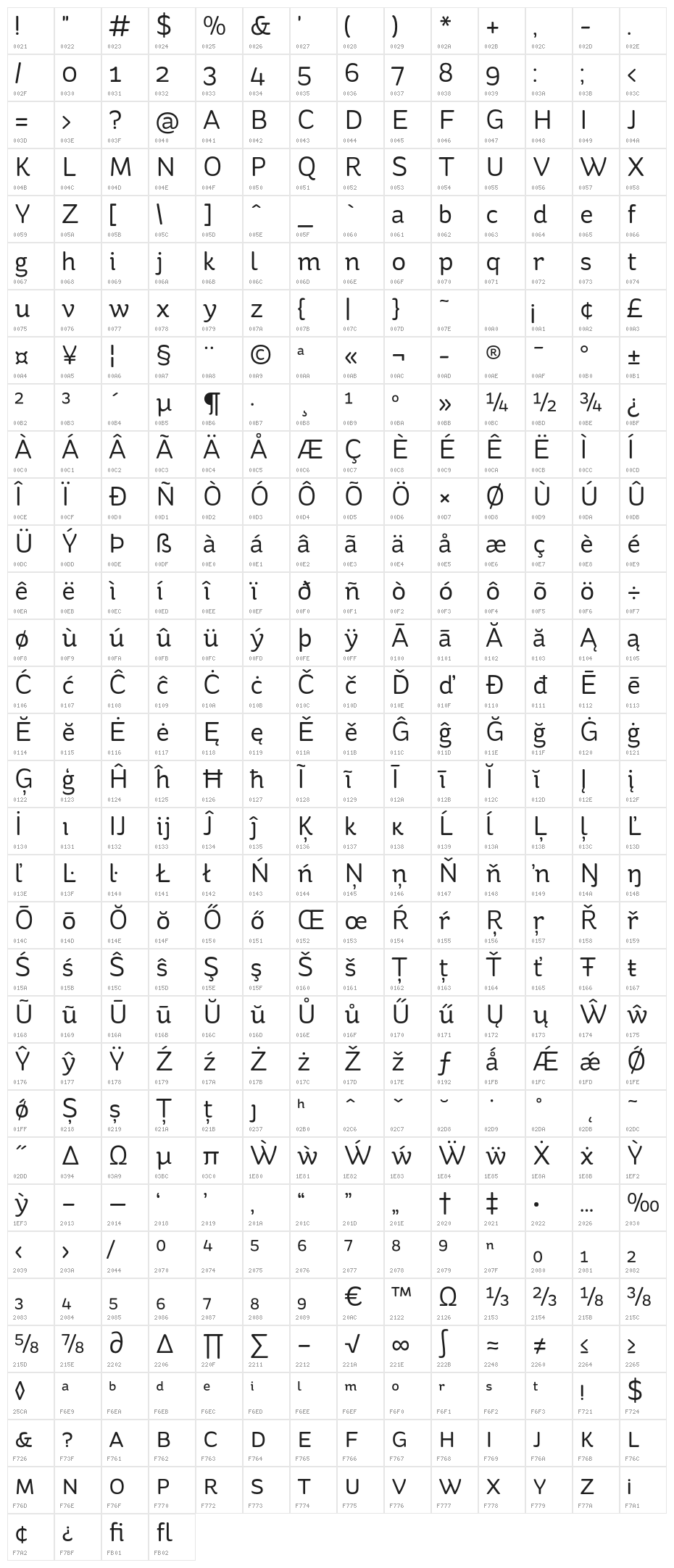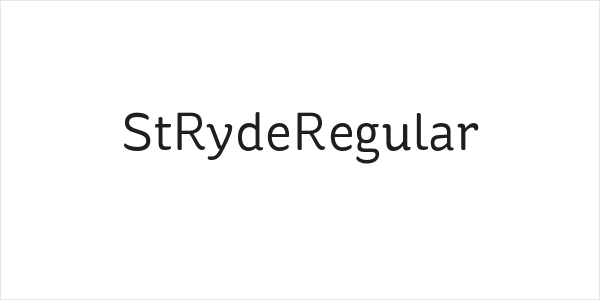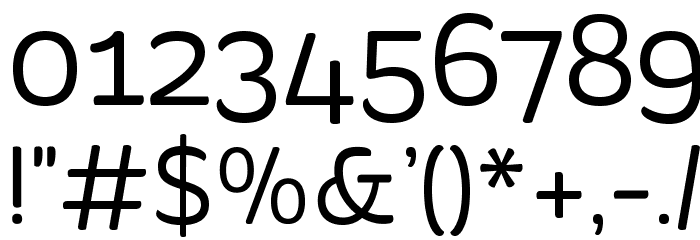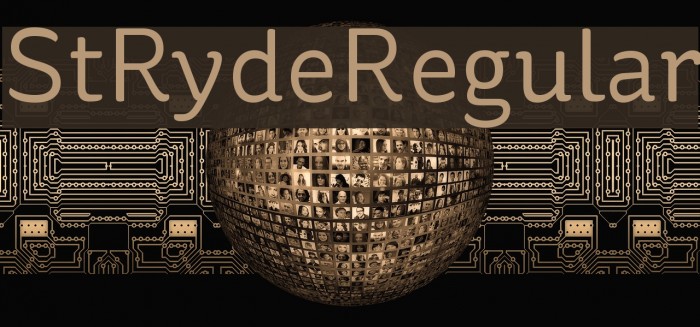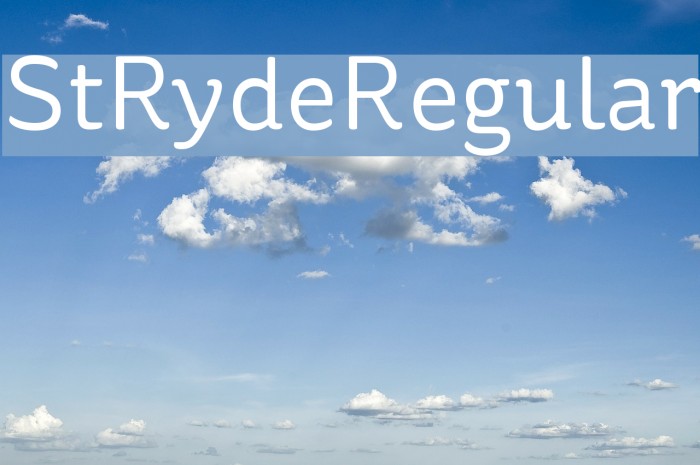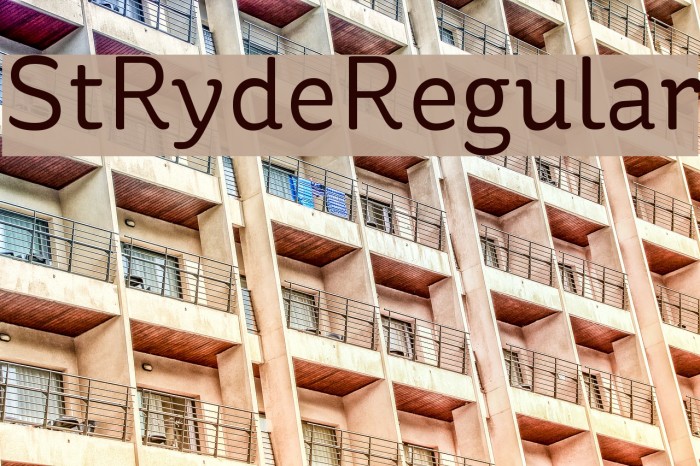
StRydeRegular Font
StRydeRegular Description
This font exhibits a clean and modern sans-serif style, characterized by its uniform stroke width and geometric shapes. The uppercase letters are bold and assertive, while the lowercase letters maintain a consistent and harmonious flow. The numerals are clear and easily distinguishable, making them suitable for various applications. Special characters are well-defined, enhancing the font's versatility. The overall design is minimalistic, with a focus on readability and simplicity, making it ideal for digital and print media.